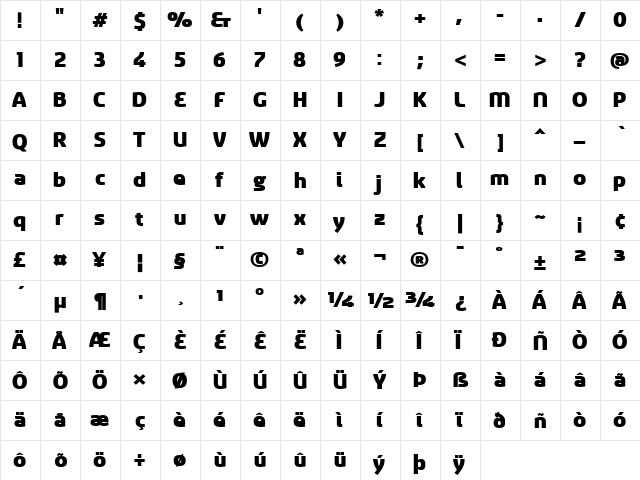
Sancoale Black
| Foundry | Jeremy Dooley |
Design Context for Sancoale Typeface
Sancoale offers clean, dependable letterforms without strong stylistic allegiance, making it a practical choice for designers who need flexibility.